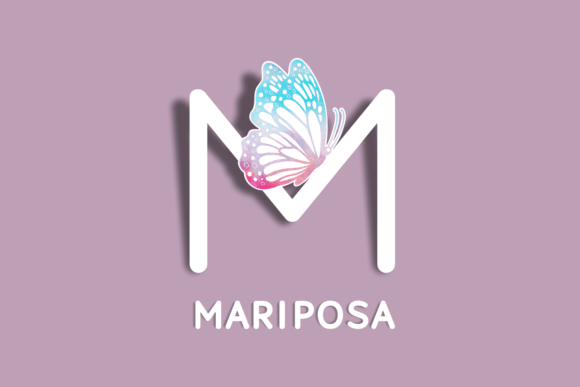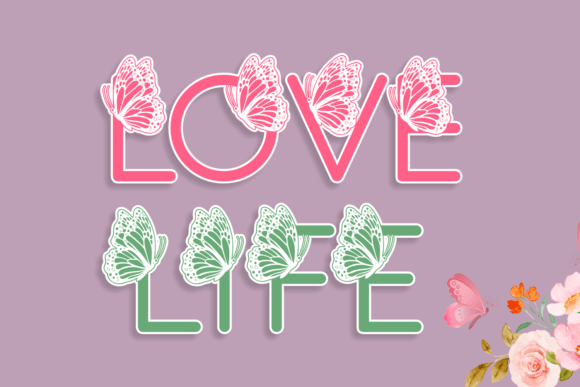
The Magical World of Better Fly Font
I’ll never forget the time I was working on a whimsical children’s book project, and my client asked for a font that would transport their readers to a magical world. I scoured the internet, tried countless fonts, but nothing seemed quite right. That was until I stumbled upon the Better Fly font. With its intricate butterfly details and delicate wings, it was as if the font was made specifically for the project. In this article, I’ll share my experience with Better Fly, its features, and how to make the most of it in your designs.
A Personal Review of Better Fly Font
I’ve had the pleasure of working with Better Fly font on several projects, and here’s what I think:
- ✨ The font’s unique butterfly design adds a touch of whimsy and elegance to any project.
- ✅ The intricate details on each character make it perfect for projects that require a high level of sophistication.
- ✅ The font is versatile and can be used for a variety of projects, from invitations to children’s books.
However, I did notice a few quirks:
- 🤔 The font can be a bit finicky when it comes to kerning, so be prepared to adjust the spacing between letters.
- ⚠️ The font’s intricate details can make it difficult to read at very small sizes.
- Experiment with the font’s OpenType features, such as stylistic alternates and glyphs, to add more variety to your text.
The Story Behind Better Fly Font
Better Fly font was designed by a team of creatives who wanted to capture the magic and wonder of butterflies. Inspired by the delicate wings and intricate details of these beautiful creatures, the team set out to create a font that would bring a touch of whimsy and elegance to any project. With its unique butterfly design and sophisticated feel, Better Fly font is sure to delight designers and crafters alike.
| Q: What type of projects is Better Fly font best suited for? | A: Better Fly font is perfect for projects that require a whimsical and elegant aesthetic, such as invitations, greeting cards, and children’s books. |